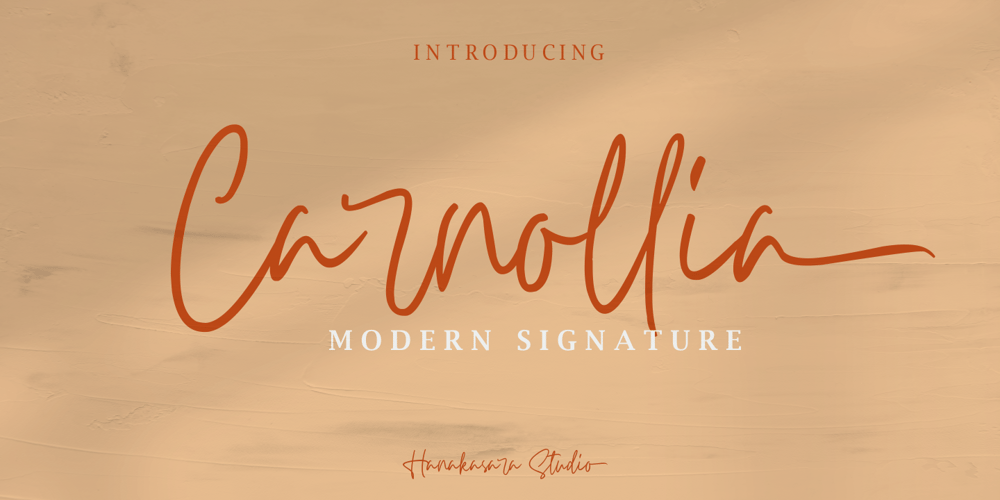
Carnollia Signature Font Family was designed by Darul Qutni and published by Hanaksara Studio. Carnollia Signature contains 1 styles and family package options. Carnollia Signature is a stylish signature font with a modern and natural handwriting impression. And it’s perfectly suited to logos, posters, wedding details, postcards, branding, apparel, taglines, quotes, and much more.Carnollia Signature includes more than 100 alternates within the following OpenType features: 3 Sets of lowercase Stylistic Alternates, Underline Swashes, and more than 40 ligatures. Thank you for checking this product and we hope you enjoy it!